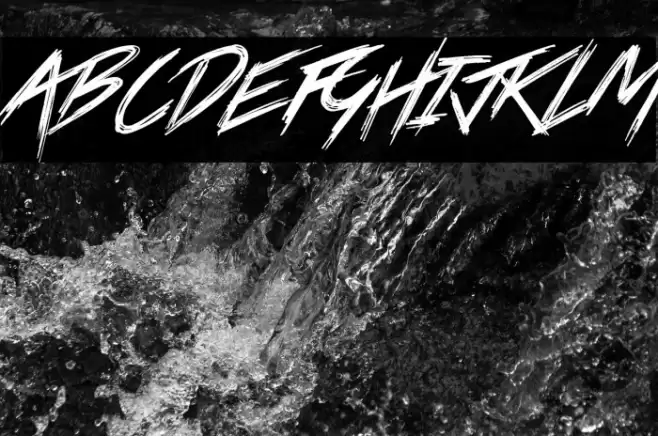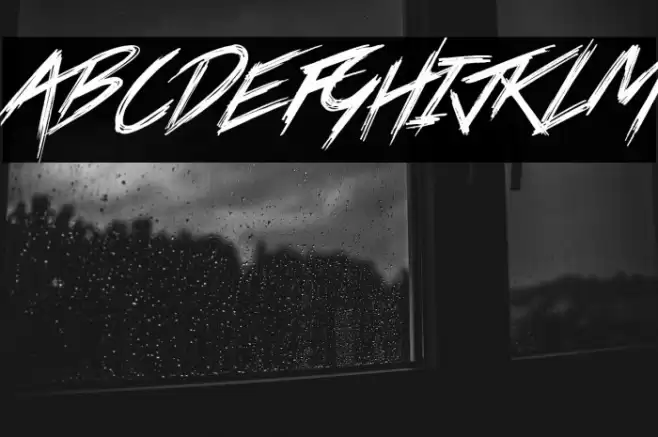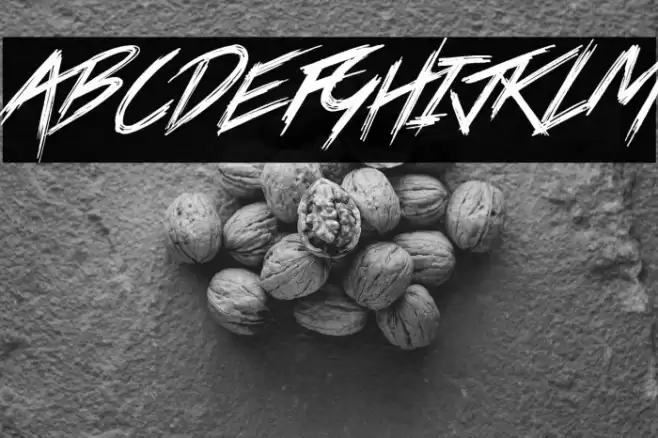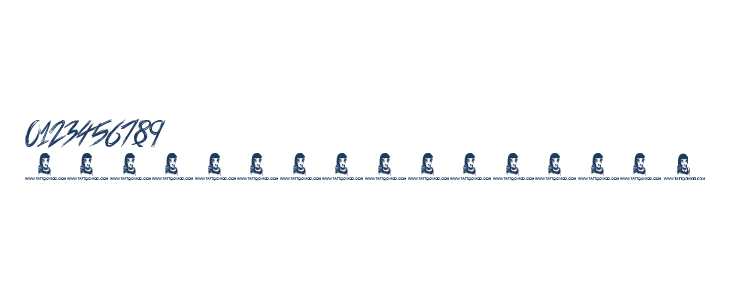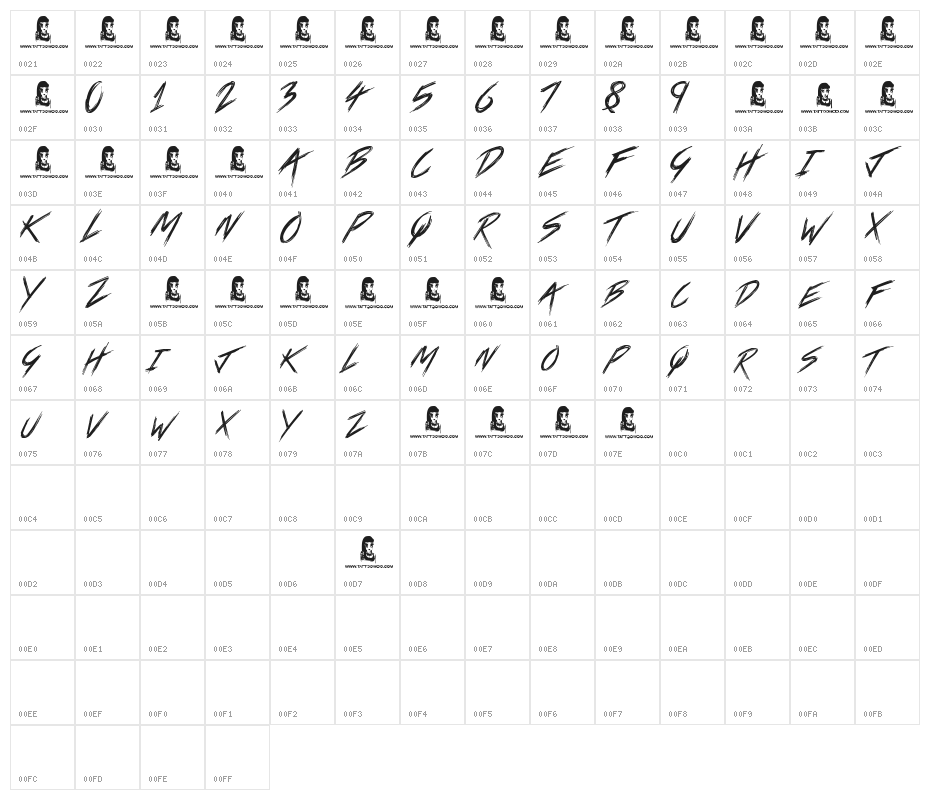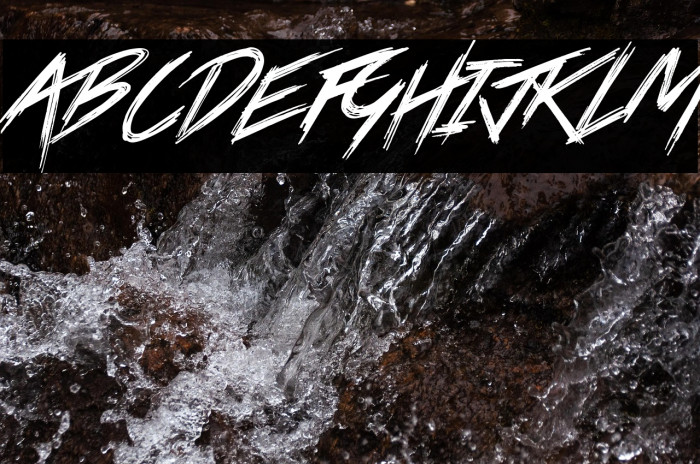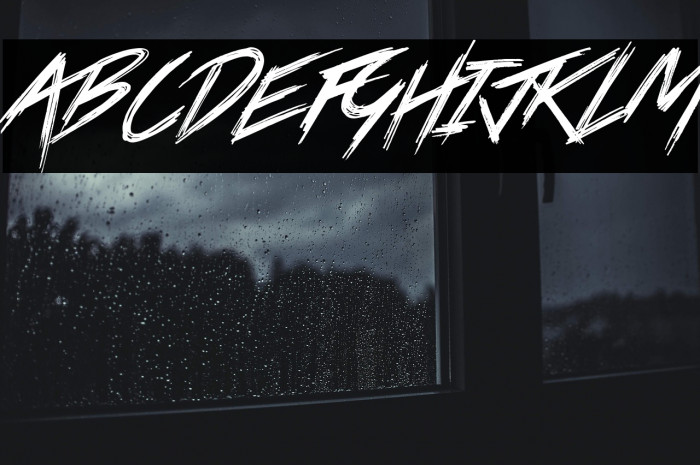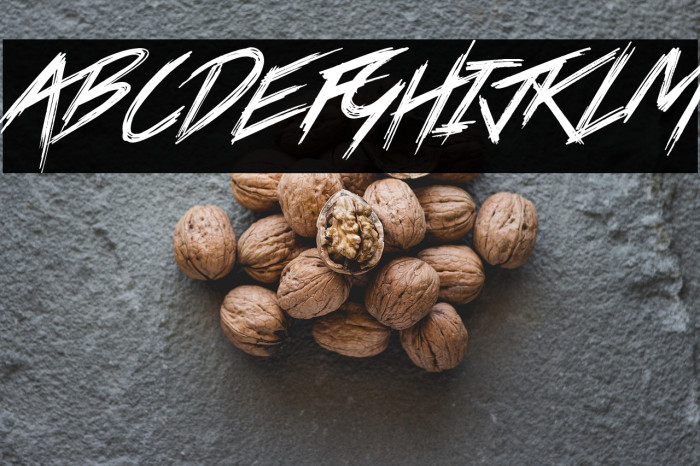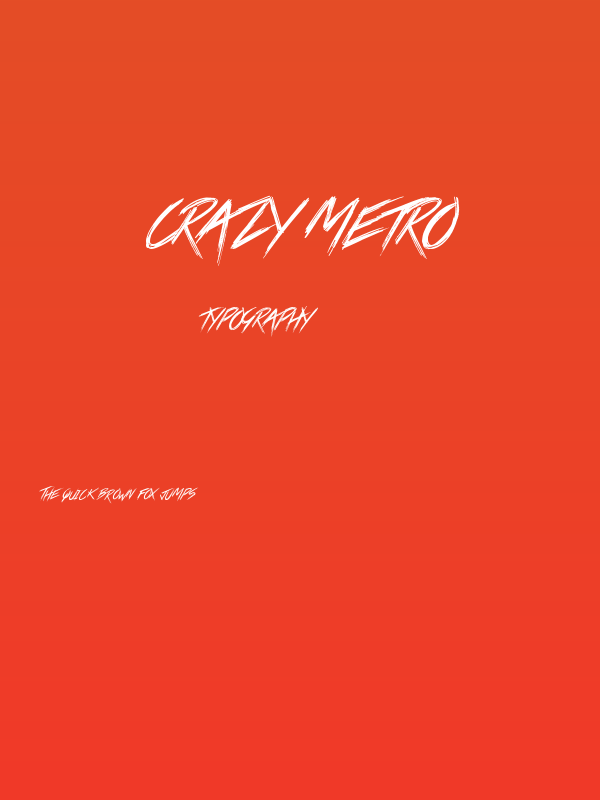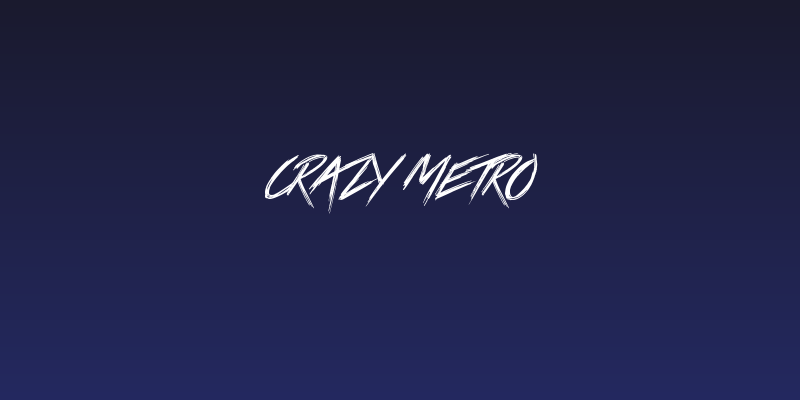
Crazy Metro Font
Crazy Metro Description
This font features a dynamic and energetic style with a brush-like appearance, characterized by sharp, angular strokes and a sense of motion. The letters are bold and expressive, with a slightly chaotic yet artistic flair. The uppercase and lowercase letters maintain a consistent style, while the numbers and special characters complement the overall design. The font's unique aesthetic makes it stand out, offering a sense of creativity and boldness.
A dynamic, brush-style font with bold, angular strokes from Uncategorized fonts.
- Font: Crazy Metro
- Proposed Projects: Ideal for projects that require a bold and artistic touch, such as posters, album covers, graffiti art, and branding for creative industries.
- Overall Style: Modern, Artistic